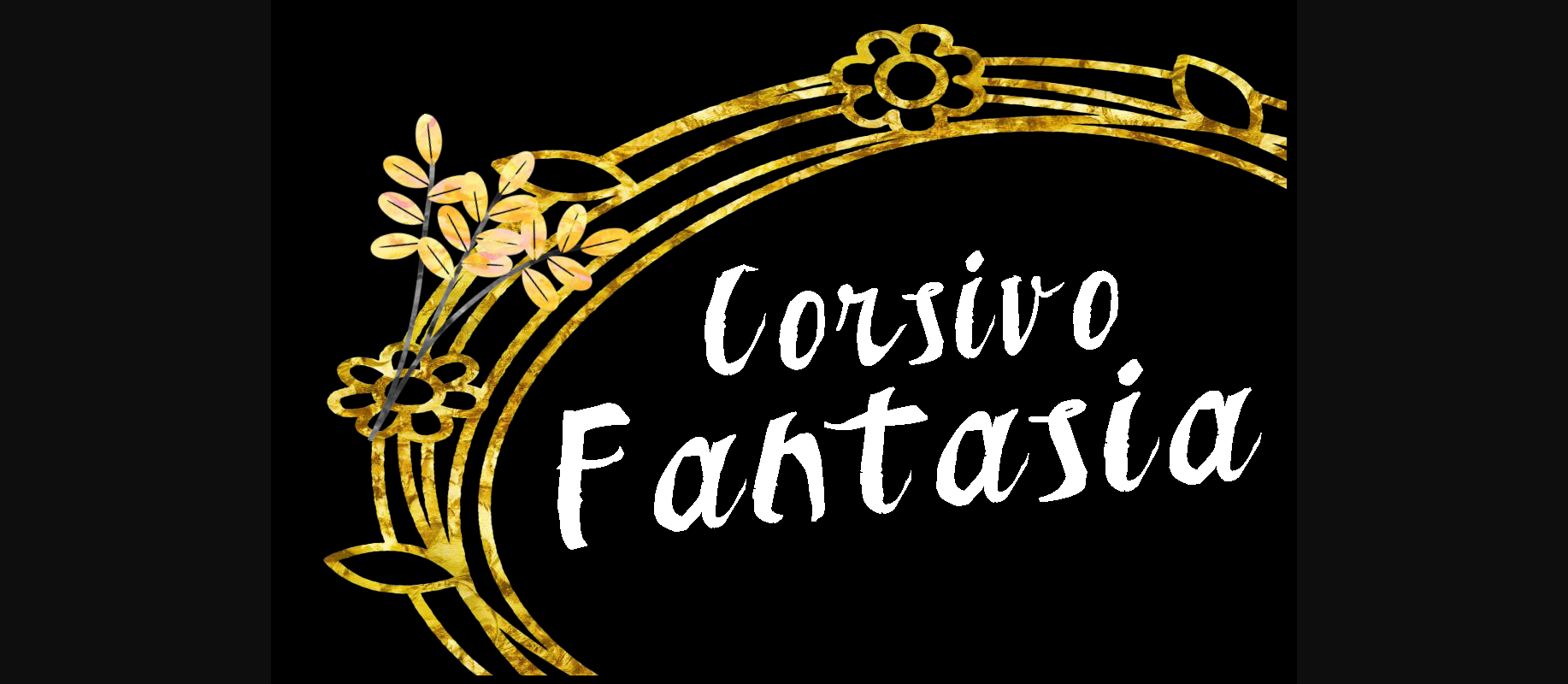
K26 Corsivo Fantasia Font
About K26 Corsivo Fantasia Font
Corsivo Fantasia is a casual, brush styled font is both decorative and easy to read. With a thick weight and handwritten quality, Corsivo Fantasia is a great decorative font choice.